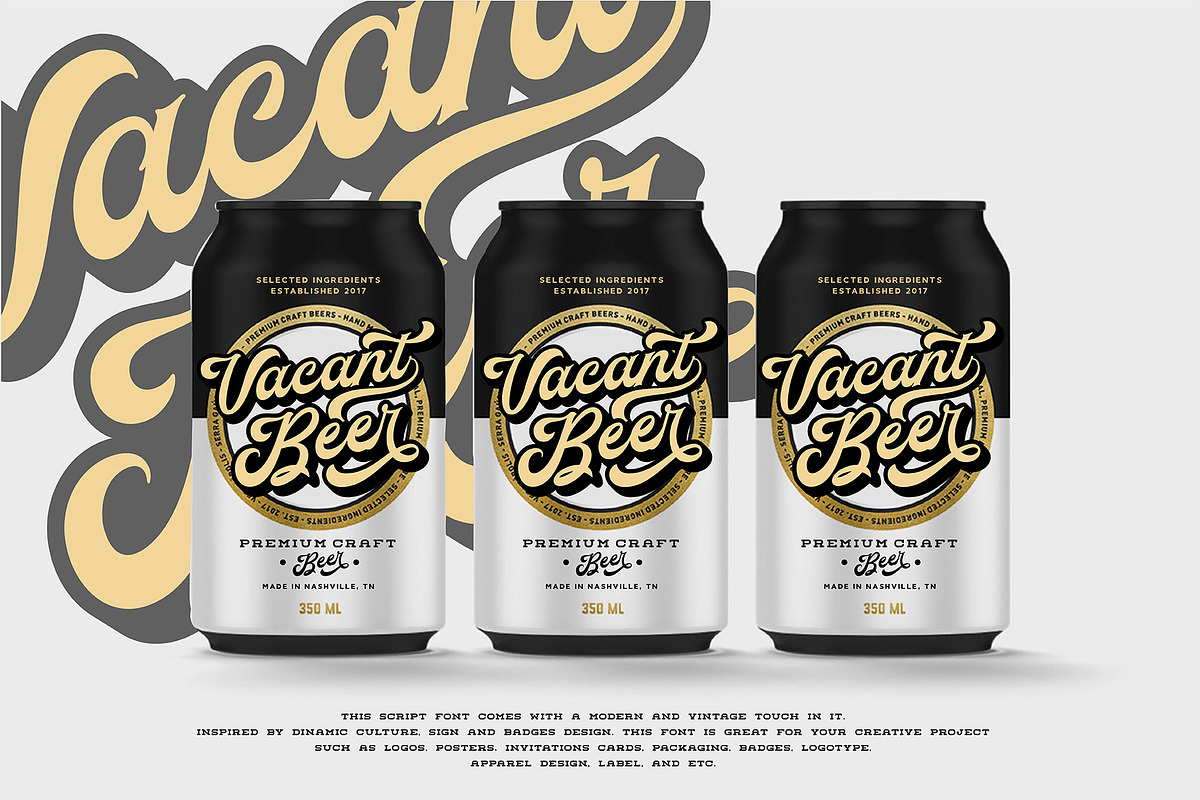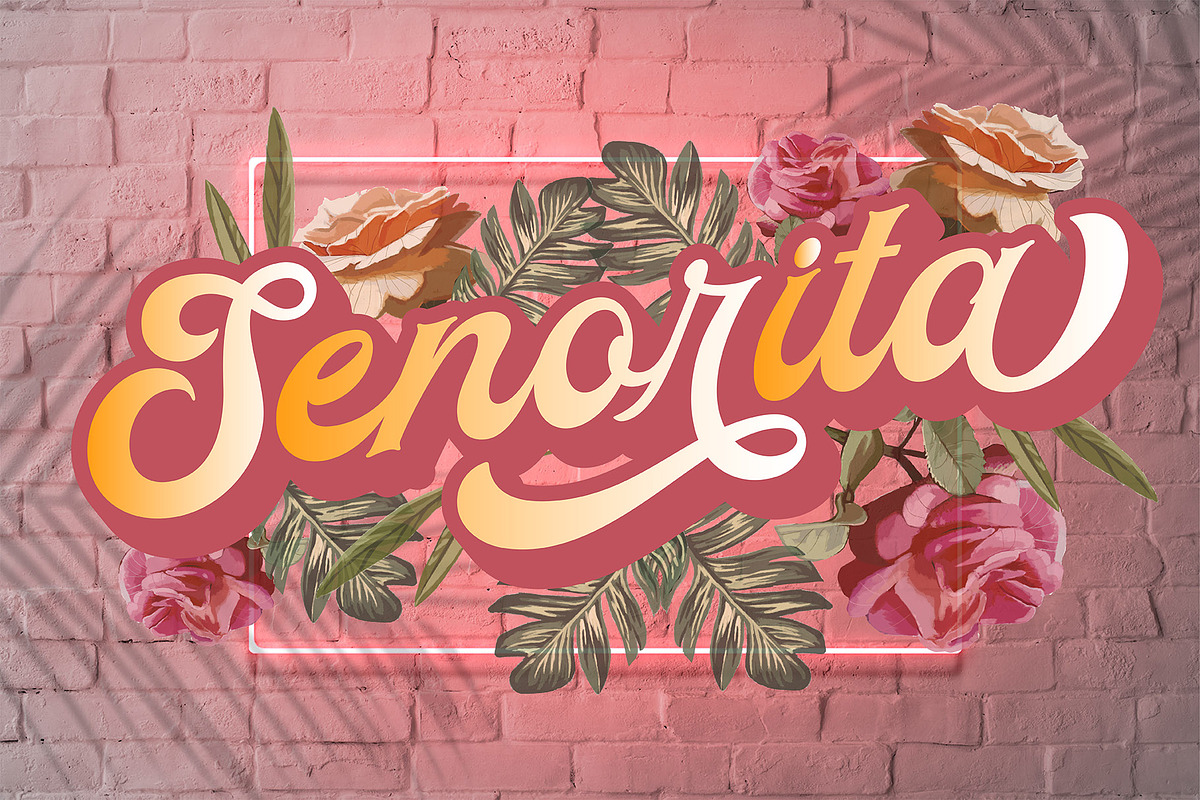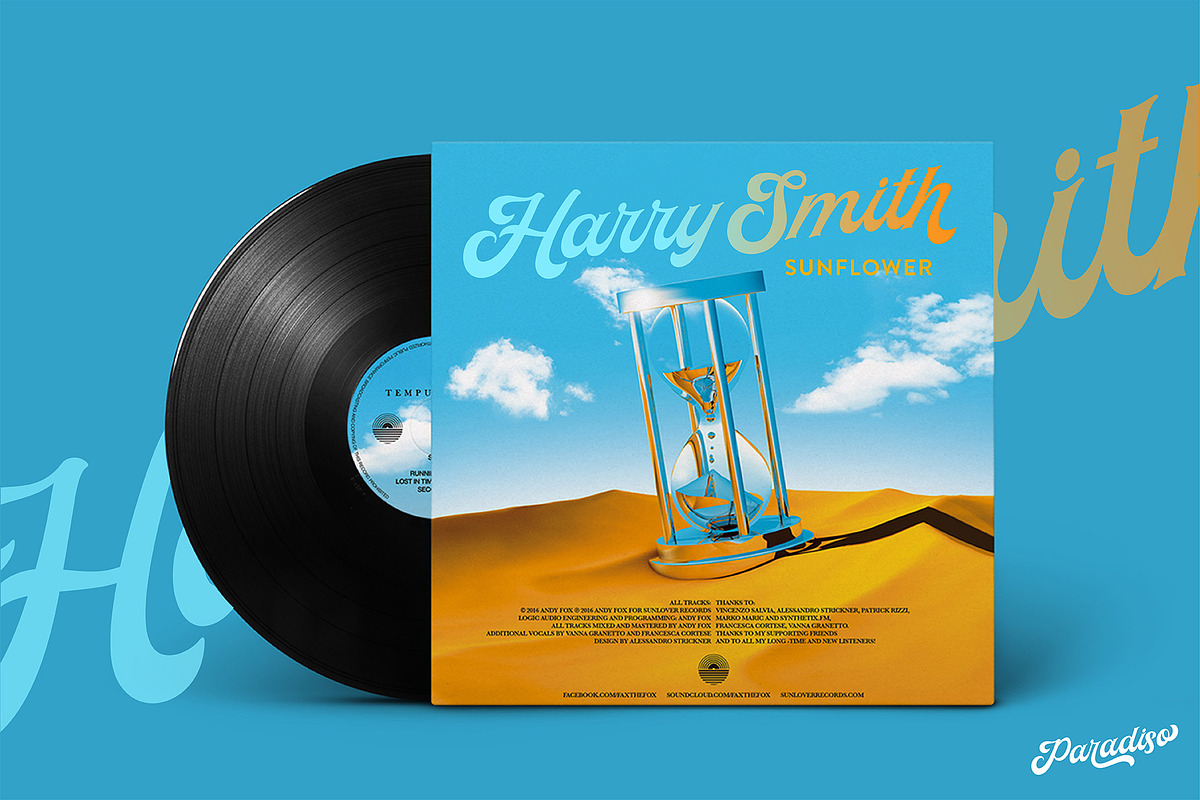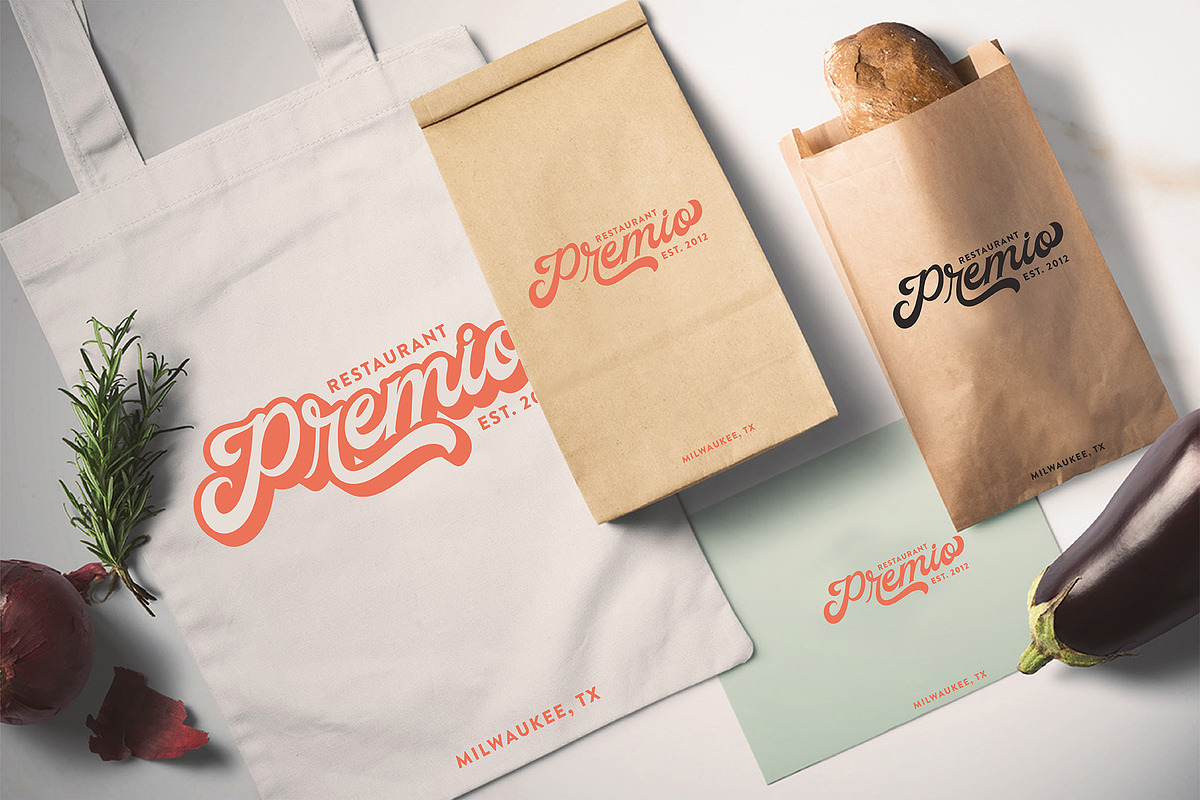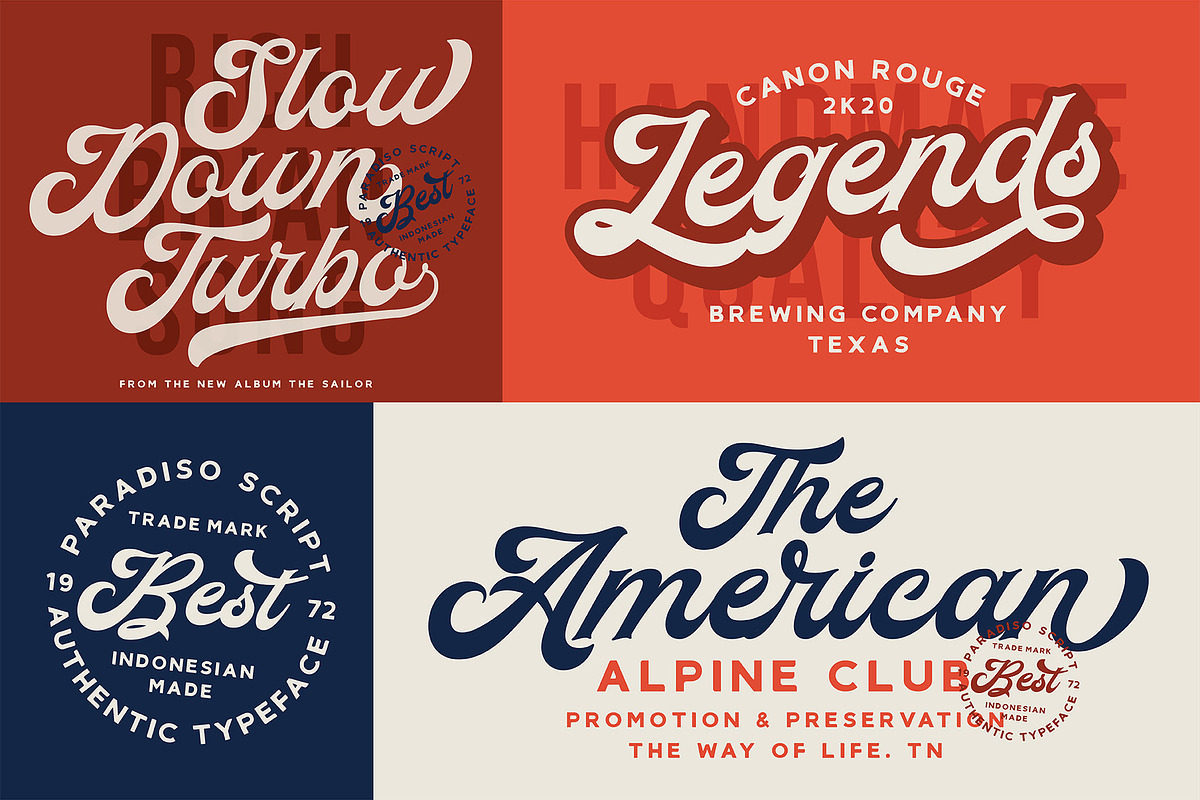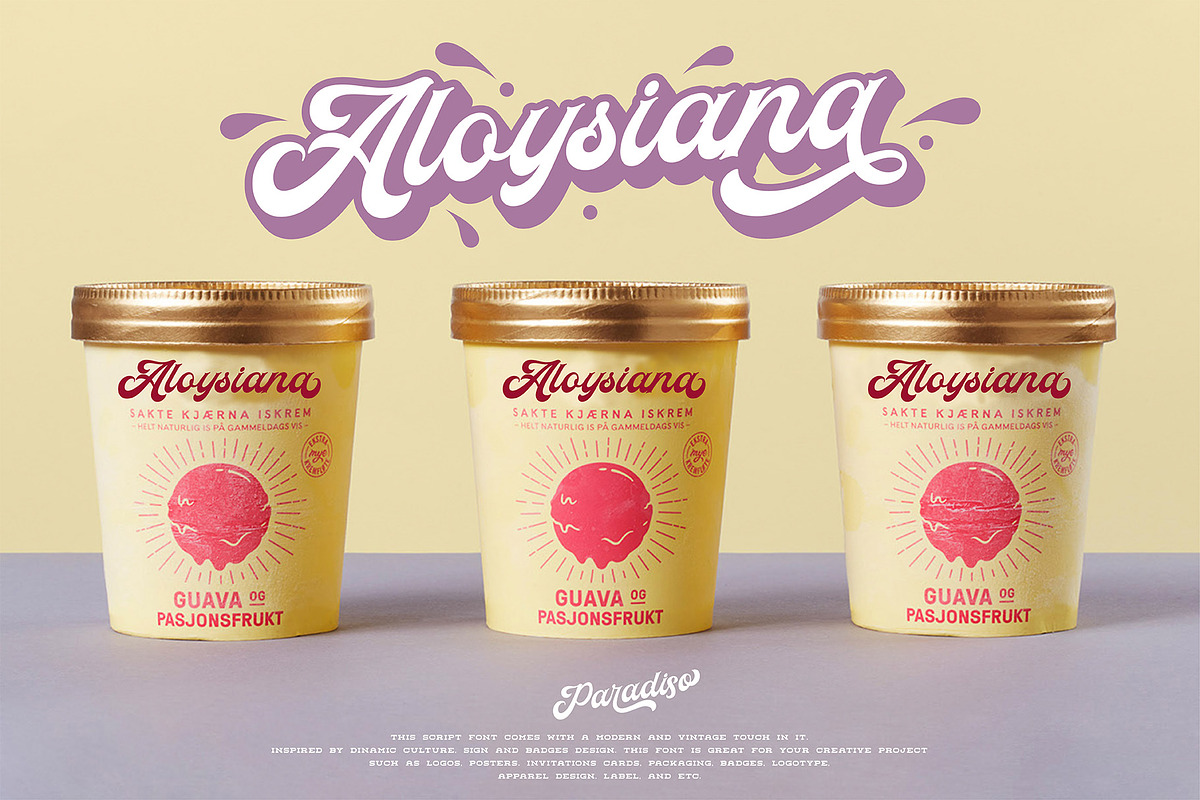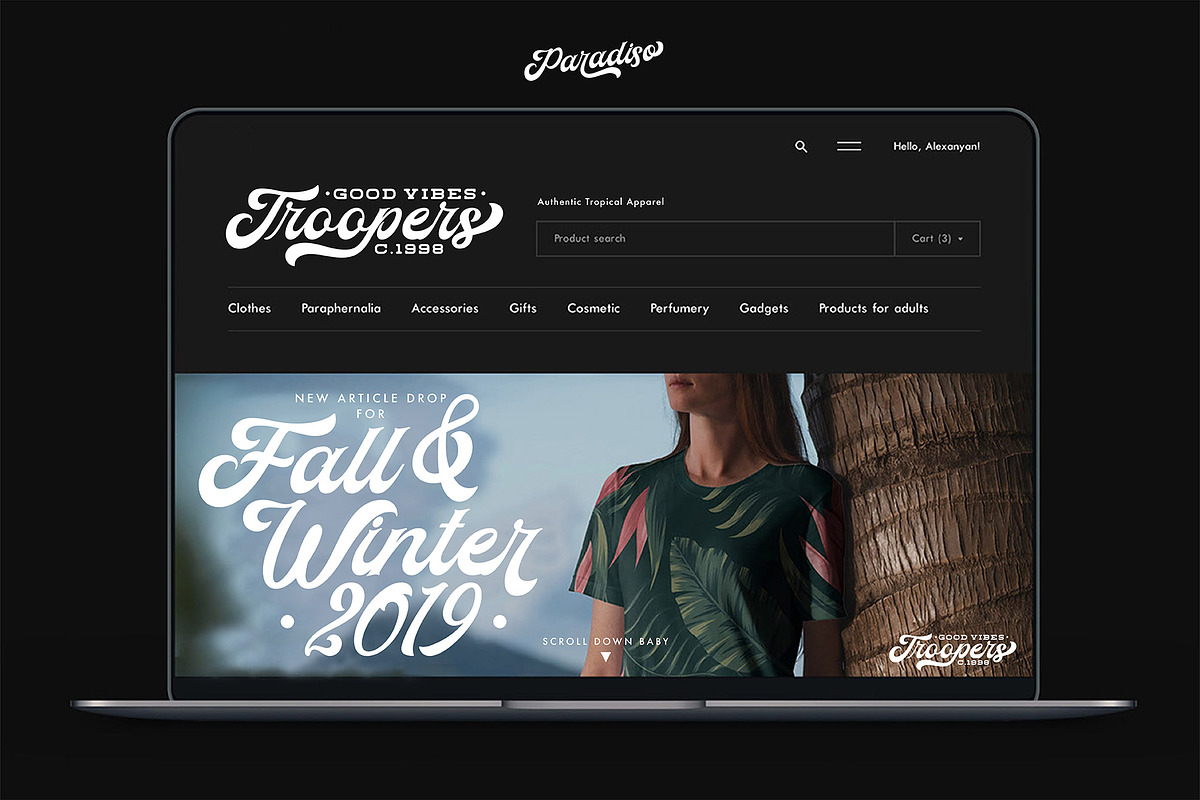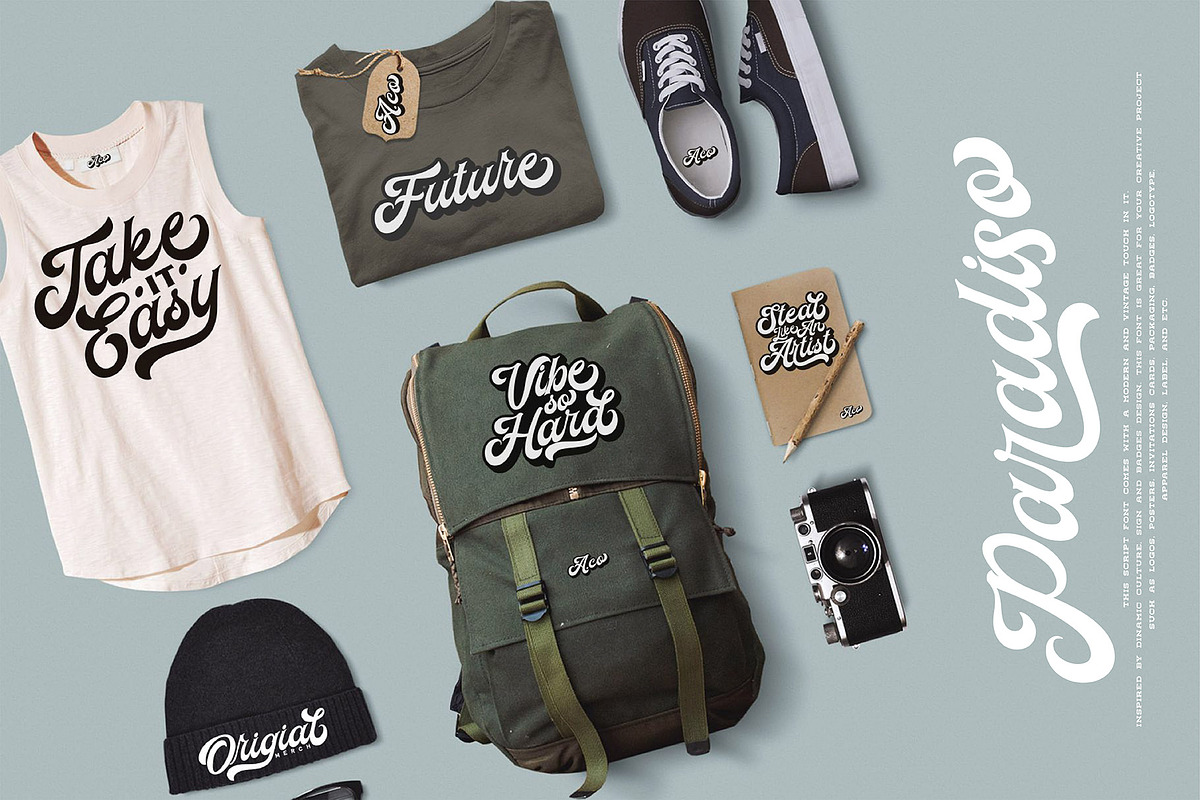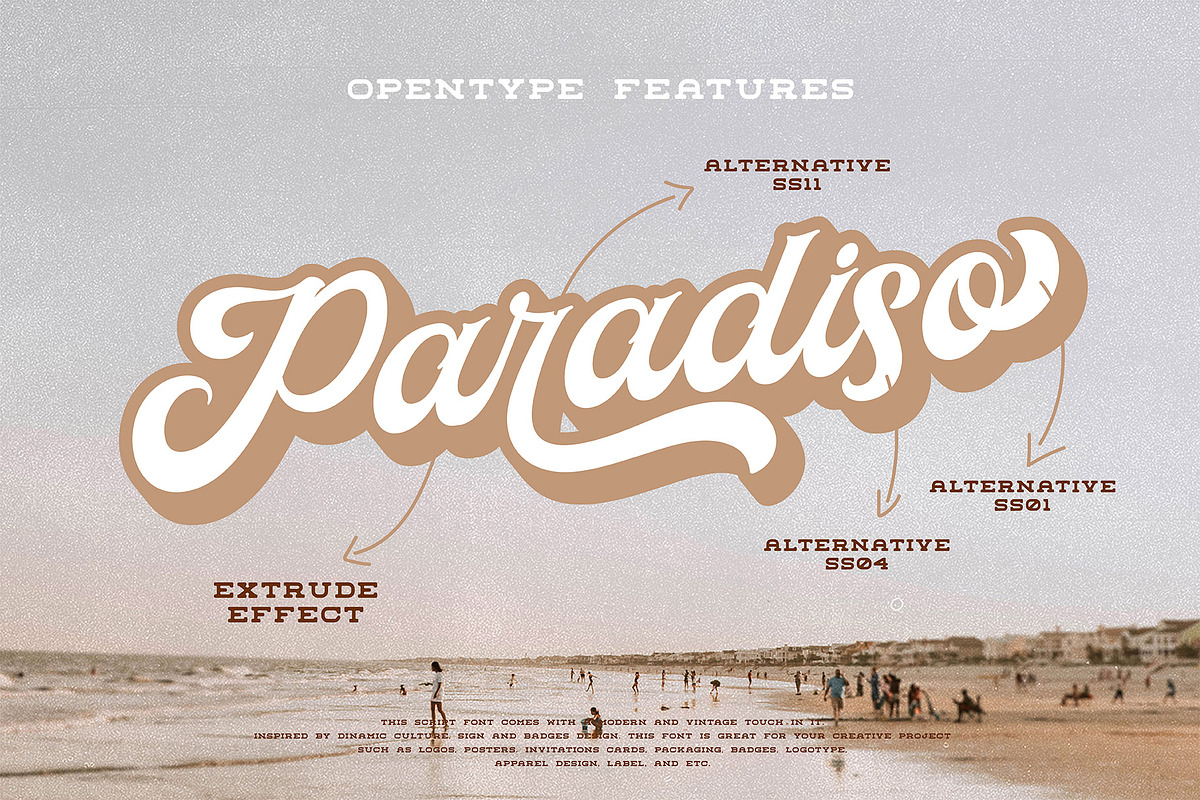
Paradiso Bold Script
PARADISO BOLD SCRIPT
This script font comes with a retro, modern and vintage touch in it. Inspired by dinamic culture, sign and badges design. This font is great for your creative project such as logos, posters. invitations cards, packaging, badges, logotype, apparel design, Label, and etc.
Paradiso Bold Script comes with uppercase, lowercase, extrude effect, numerals, punctuations and so many variations on each characters include opentype alternates, also additional swash to let you customising your designs.